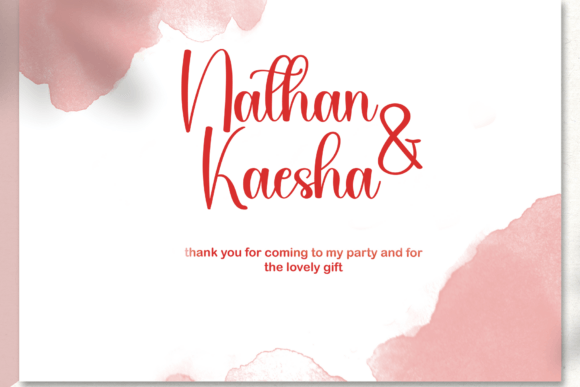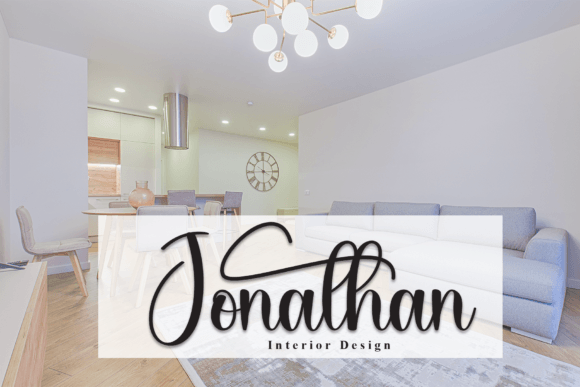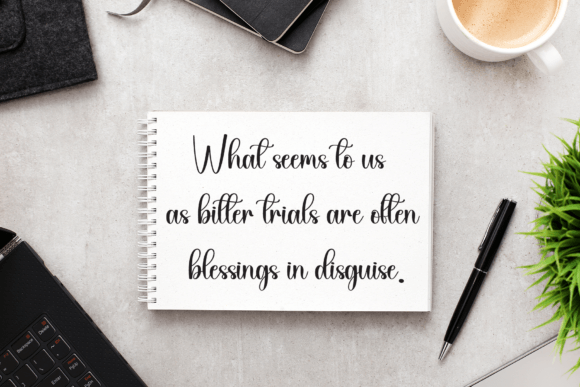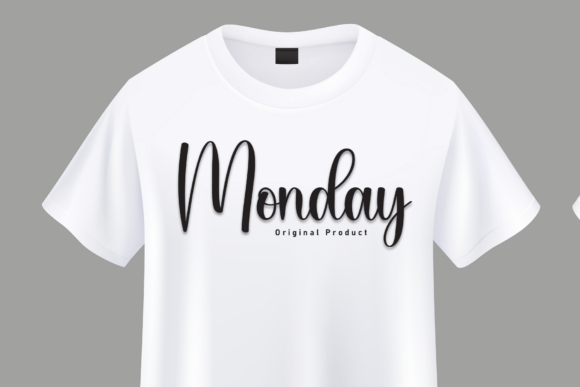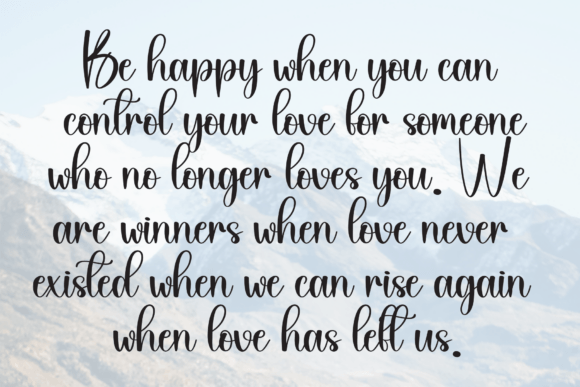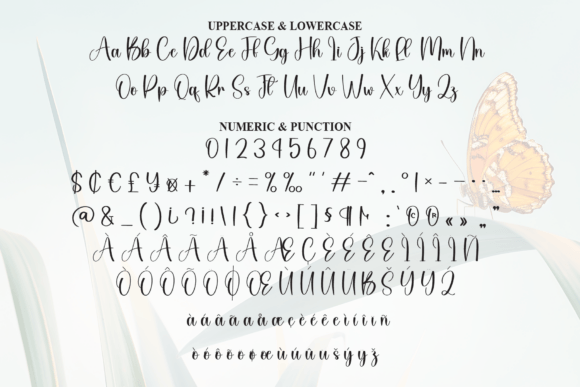
Unleash the Magic of Beauty Butterfly Font
Have you ever been brainstorming ideas for a special event or a heartfelt gift, only to be stuck on the perfect way to express your emotions? The search for the right words can be just as thrilling as the event itself. One moment of clarity, and you’re swept away by a wave of creativity. You envision a beautiful invitation, a lovely card, or a stunning design that captures the essence of the occasion. That’s where the Beauty Butterfly Font comes in – a lovely handwritten font that brings your imagination to life.
This charming font features elegant, flowing letters that exude a sense of whimsy and beauty. Its playful style makes it perfect for adding a personal touch to your creative projects. Whether you’re a seasoned designer or a DIY enthusiast, the Beauty Butterfly Font is a valuable addition to your toolkit. Its versatility and charm make it an excellent choice for designers looking to create stunning visuals that leave a lasting impression.
- Unique Characteristics: Delicate, whimsical design with intricate details and subtle texture, ideal for feminine or children’s content
Beauty Butterfly Font Review
As a designer, I’ve had the chance to work with the Beauty Butterfly Font, and here’s my honest take on it.
- Unique design: The font’s whimsical, hand-drawn feel makes it perfect for adding a touch of personality to branding materials or digital content.
- Legibility: Despite its delicate appearance, the font is surprisingly easy to read, making it suitable for body text and headlines alike.
- Customization options: The font comes in a range of weights and styles, allowing designers to fine-tune the look to suit their project’s needs.
- Limited scalability: The font’s intricate details can become distorted at larger sizes, which may require designers to use a combination of font sizes and styling to achieve the desired effect.
- Not ideal for text-heavy content: While the font is legible, its density and line spacing may not be suitable for lengthy blocks of text, such as articles or academic papers.
The Beauty Butterfly Font is a great choice for designers looking to add a touch of elegance and whimsy to their projects. While it may have some limitations, its unique design and customization options make it a valuable addition to any designer’s toolkit.
The Beauty Butterfly font is perfect for:
- Creative and feminine designs.
- Baby shower invitations and decorations.
For optimal results, use the Beauty Butterfly font in combination with pastel colors and floral patterns.
Alternatives to Beauty Butterfly Font
The Beauty Butterfly Font is a cursive script font known for its elegant and whimsical feel. However, there are several other alternatives that designers can use to achieve a similar look.
Carolyna Pro is a modern script font that features a unique blend of elegance and playfulness. It’s ideal for use in invitations, logos, and other design elements where a touch of sophistication is needed.
Compared to Beauty Butterfly Font, Carolyna Pro has a more refined and polished look, making it suitable for a wider range of design applications.
Great Vibes is a beautiful script font that’s perfect for creating a romantic and whimsical atmosphere. It’s ideal for use in wedding invitations, greeting cards, and other design elements where a touch of romance is needed.
Compared to Beauty Butterfly Font, Great Vibes has a more fluid and organic look, making it suitable for use in design elements where a sense of movement and energy is desired.
Pacifico is a beautiful script font that’s inspired by the beauty of the Pacific Ocean. It’s ideal for use in design elements where a sense of calmness and serenity is needed.